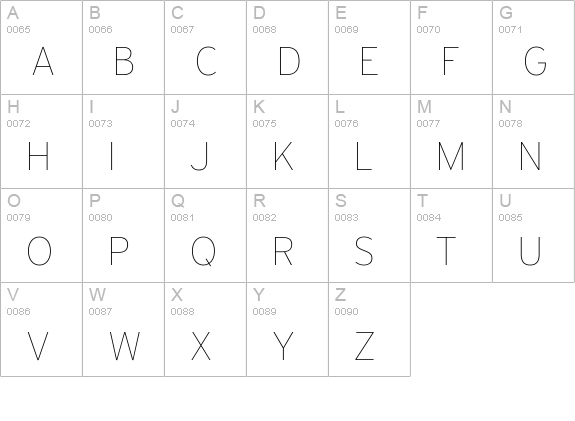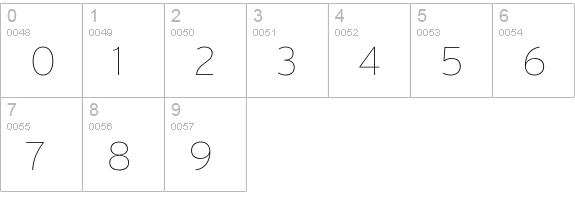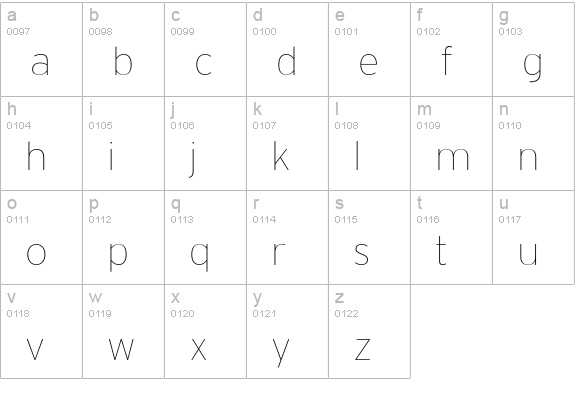
Interstate Thin Font Details
Interstate Thin is a delicate, low-contrast variant in the Interstate typeface family \xE2\x80\x94 well suited to fashion editorial, minimal branding, and high-contrast display.
Introducing Interstate Thin, a sleek and elegant font that is sure to captivate and inspire. With its delicate and refined lines, this font exudes a sense of sophistication and modernity, making it perfect for a wide range of design projects. Interstate Thin is a versatile typeface that effortlessly combines clean, crisp strokes with a touch of subtlety. Its slender and graceful appearance brings a sense of balance and harmony to any composition, making it an ideal choice for both headlines and body text. One of the most remarkable features of Interstate Thin is its ability to convey a sense of simplicity and clarity while still maintaining a distinct personality. Its minimalistic yet distinctive design allows this font to stand out and make a lasting impression in any context. What makes Interstate Thin even more appealing is that it is freely available to download at FontsMarket.com. This means that designers and creatives can easily access this remarkable font without any hassle or cost. Whether you're working on a personal project or a professional endeavor, Interstate Thin offers the opportunity to elevate your designs with its timeless and refined aesthetic. So why wait? Embrace the beauty of Interstate Thin and let its elegant and versatile nature elevate your designs to new heights. Download this remarkable font today at FontsMarket.com and unlock a world of possibilities for your creative endeavors.